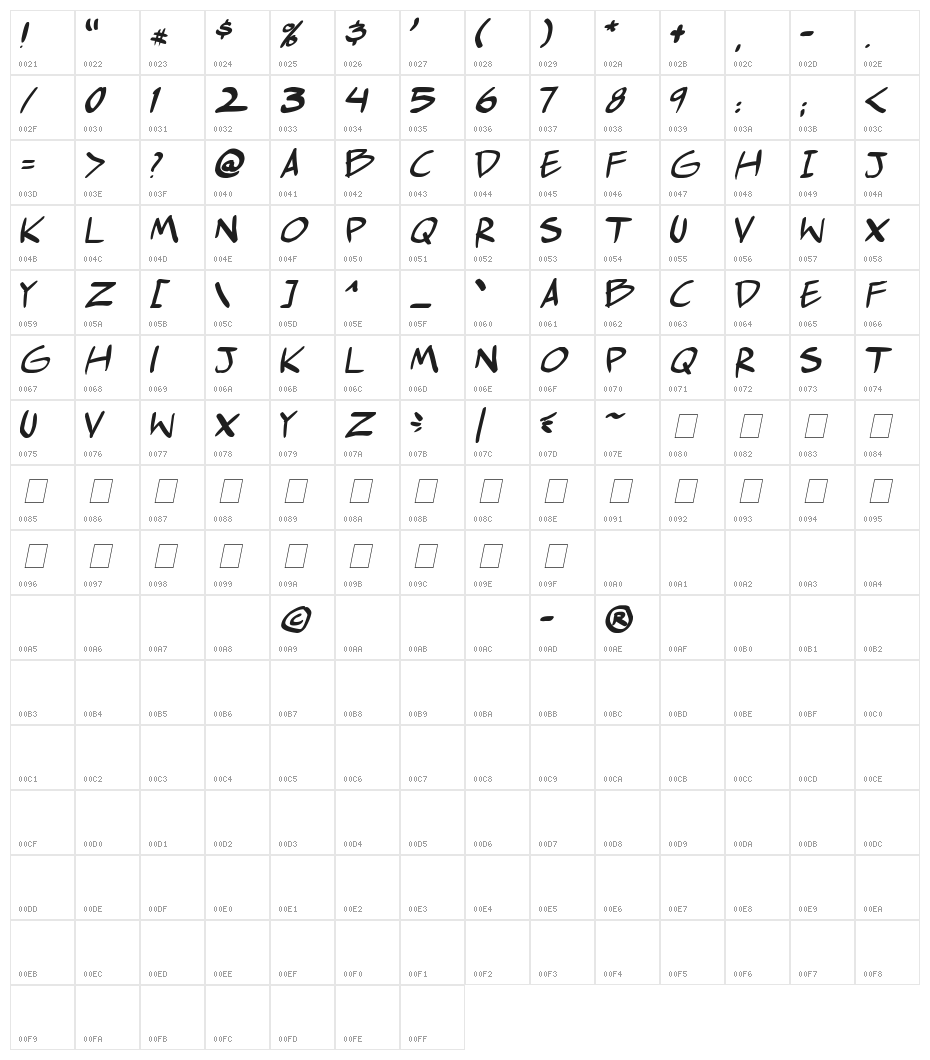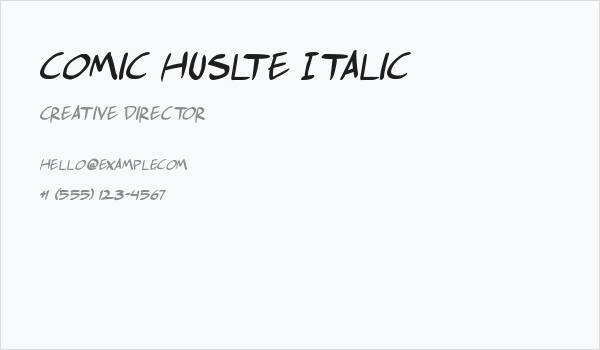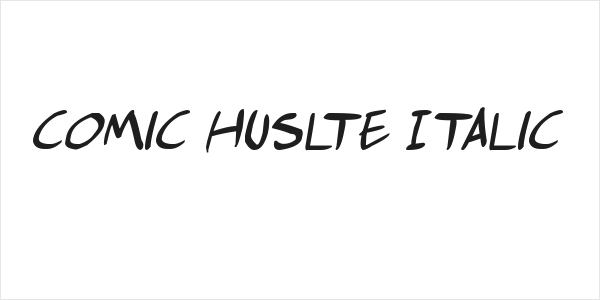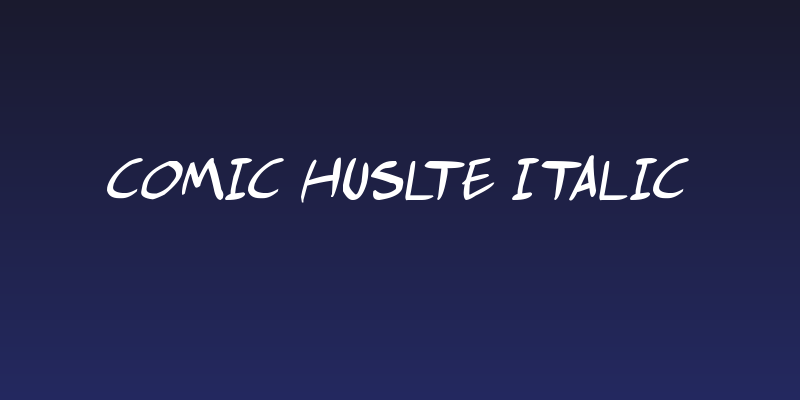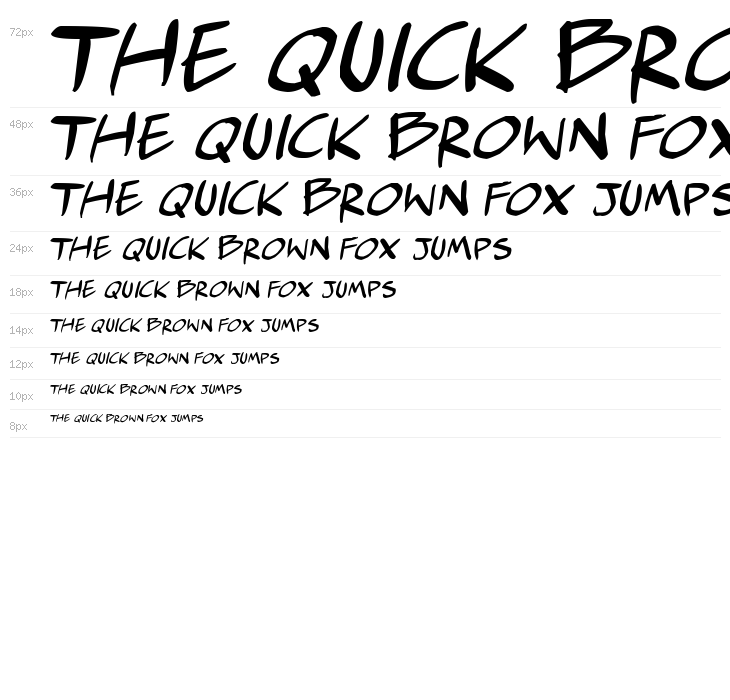
comic huslte Italic Font
comic huslte Italic Description
This font features a playful and dynamic style, characterized by its bold and italicized letterforms. The strokes are thick and expressive, giving it a handwritten appearance that is both casual and energetic. The letters are slightly slanted, enhancing the sense of movement and fluidity. The numbers and special characters maintain the same lively aesthetic, making the font suitable for informal and creative projects. Its boldness ensures visibility and impact, while the italic style adds a touch of spontaneity and fun.
| Proposed Projects | Ideal for comic book lettering, playful branding, children's book covers, and creative posters. |